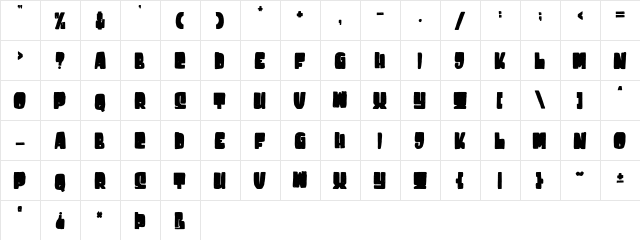
Destone Regular
Design Context for Destone Typeface
Destone is a composed and adaptable typeface that performs quietly and consistently across a wide range of design contexts.